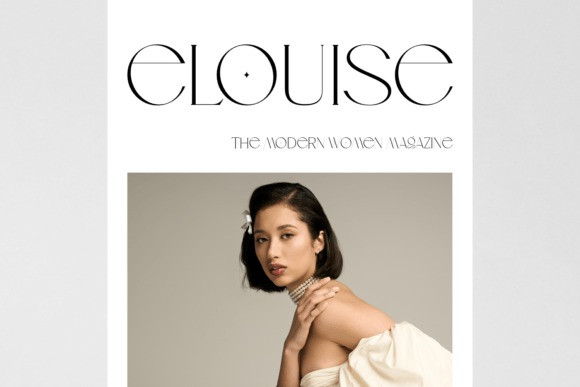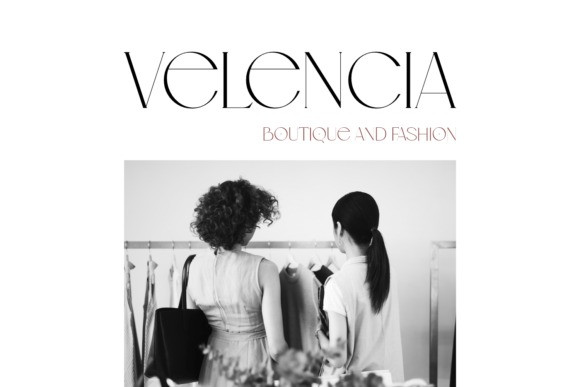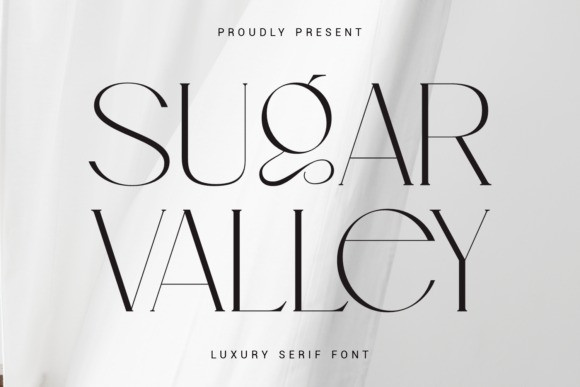
Sugar Valley Font
Sugar Valley Font, a luxury serif font. The minimalist and sophisticated aesthetic highlights the font’s delicate, high-contrast letterforms and unique ligatures, making it ideal for high-fashion and luxury branding.